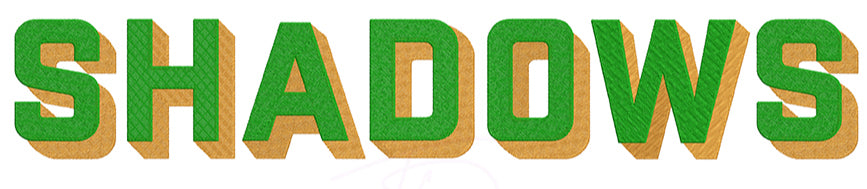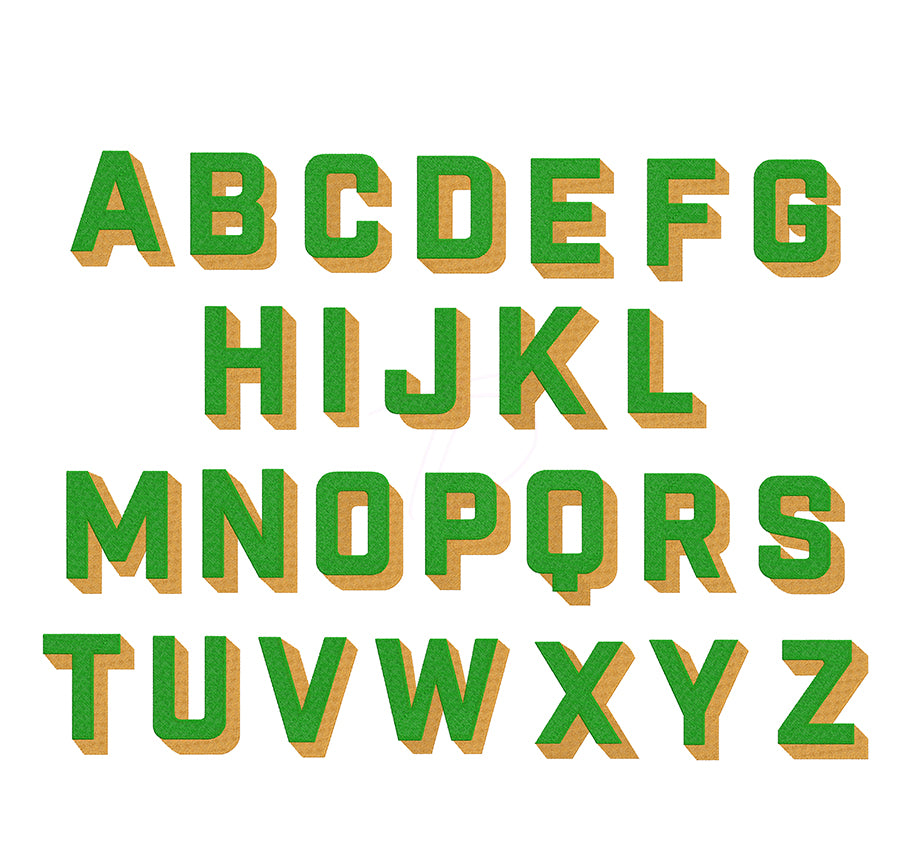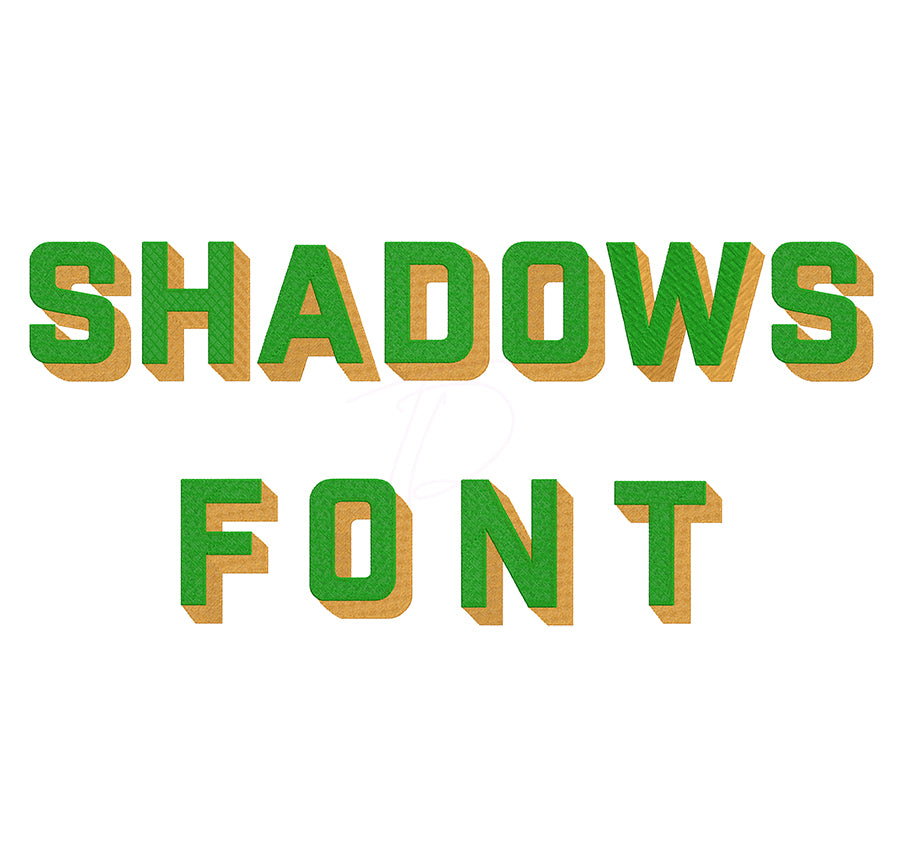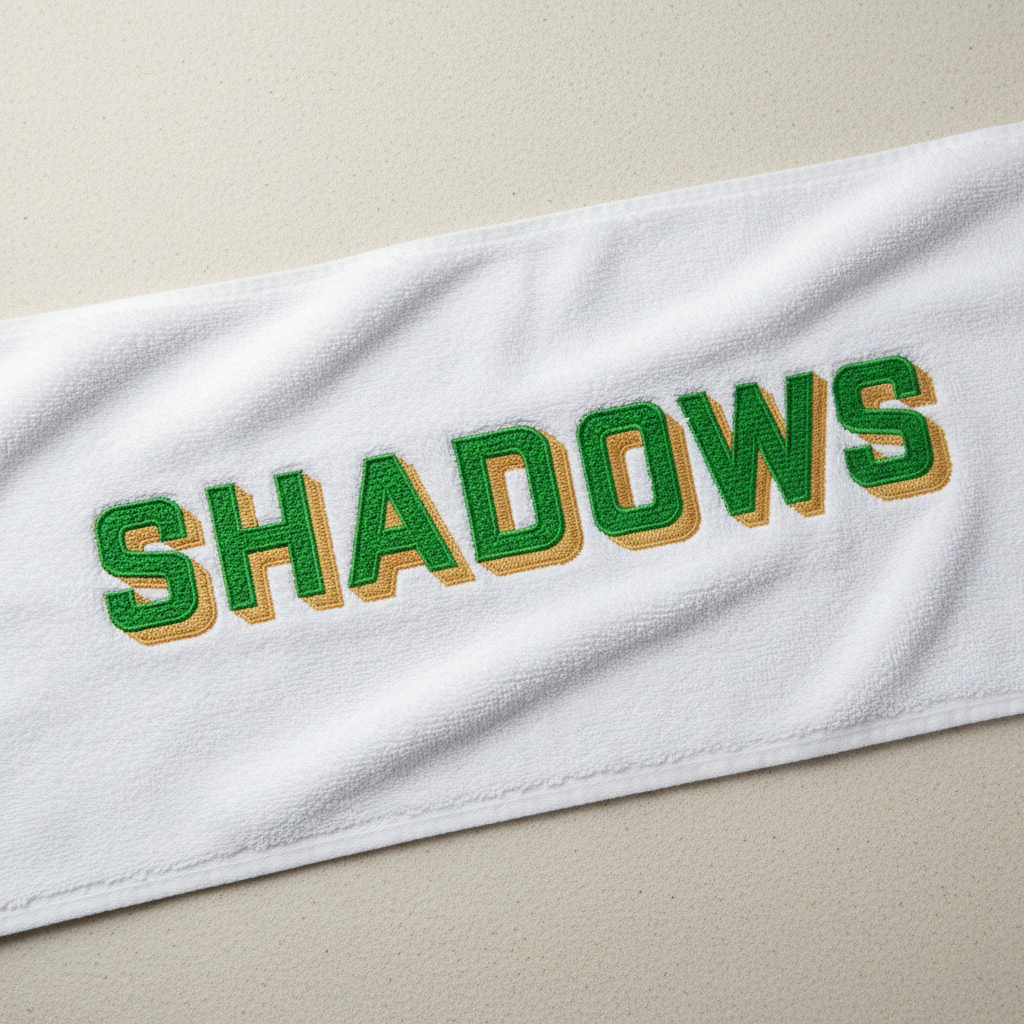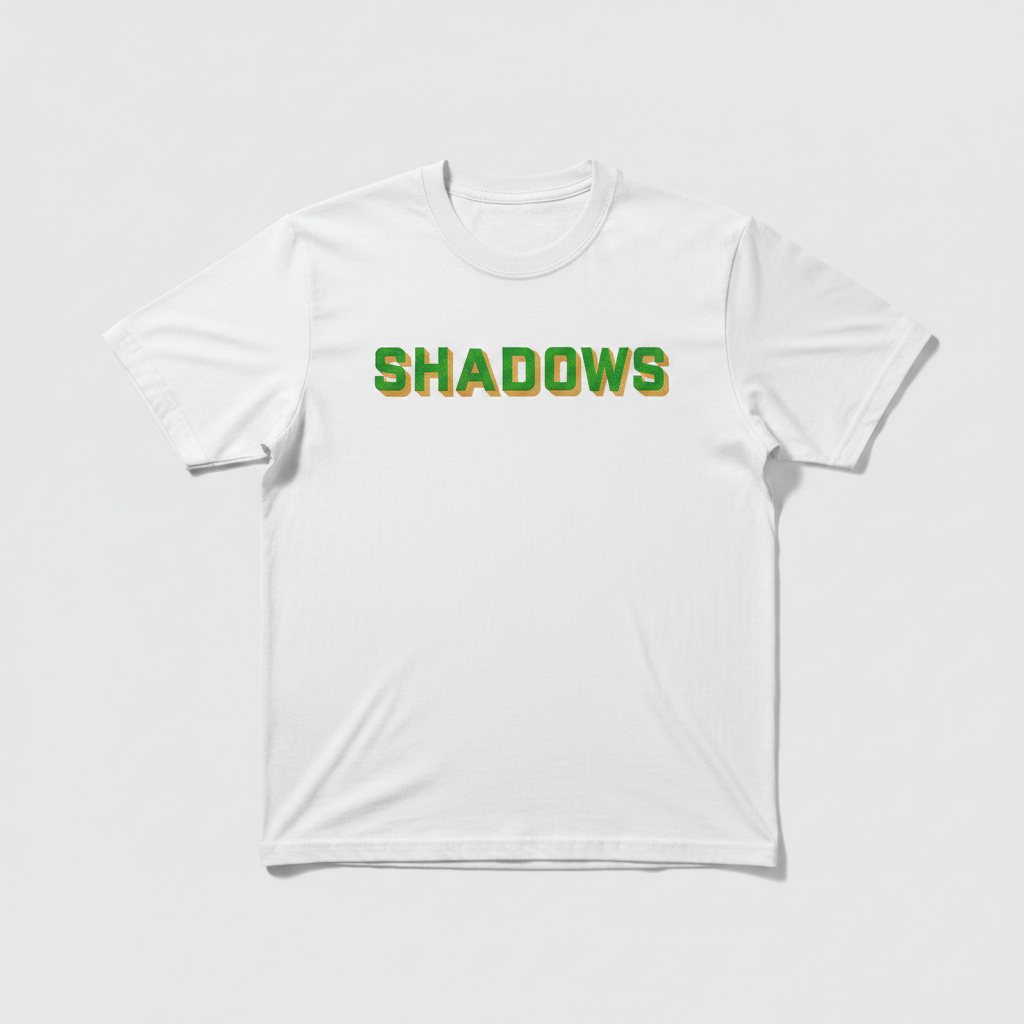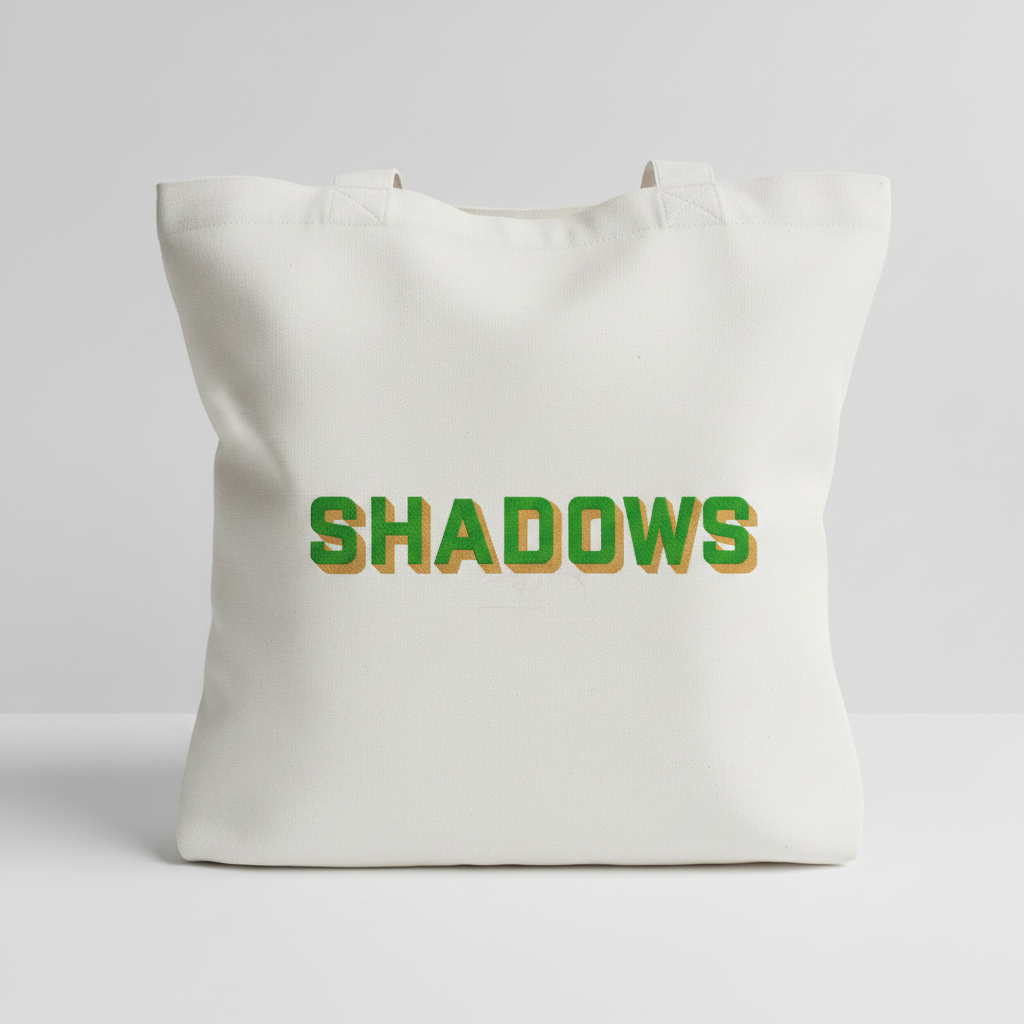
Shadows Fill Embroidery Digital Font
Bring depth and dimension to your embroidery projects with the Shadows fill stitch font — a beautifully crafted machine embroidery alphabet designed for clean, smooth fill stitch results.
- Style: Fill stitch